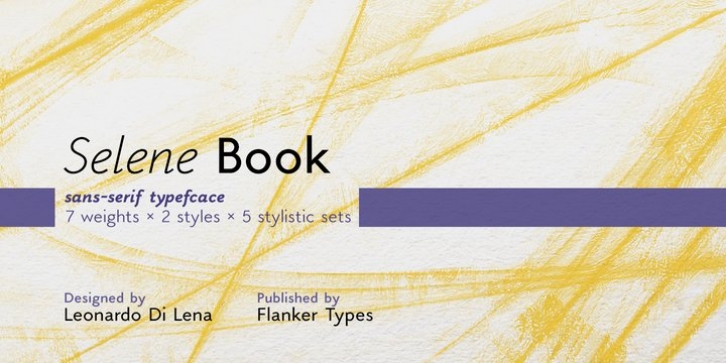
Selene Book is a sans-serif font family designed by Leonardo Di Lena and derived from Selene. The font is based on geometric forms with as few improving legibility optical corrections as possible.
If you need a minimalist font, technical but friendly and elegant, this is your choice.
There are glyphs for all languages ​​with Latin, Greek and Cyrillic alphabets, all the basic ligatures, old style numerals and five Latin capitals alternates that catches the 1900-1950 font styles.